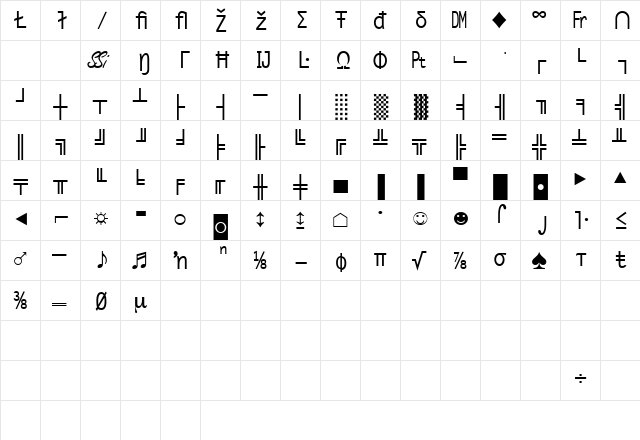
MicroPiTwoSSK Regular
Design Context for MicroPiTwoSSK Typeface
MicroPiTwoSSK takes a measured approach to typography — its balanced proportions and neutral character make it a reliable workhorse for both digital and print work.